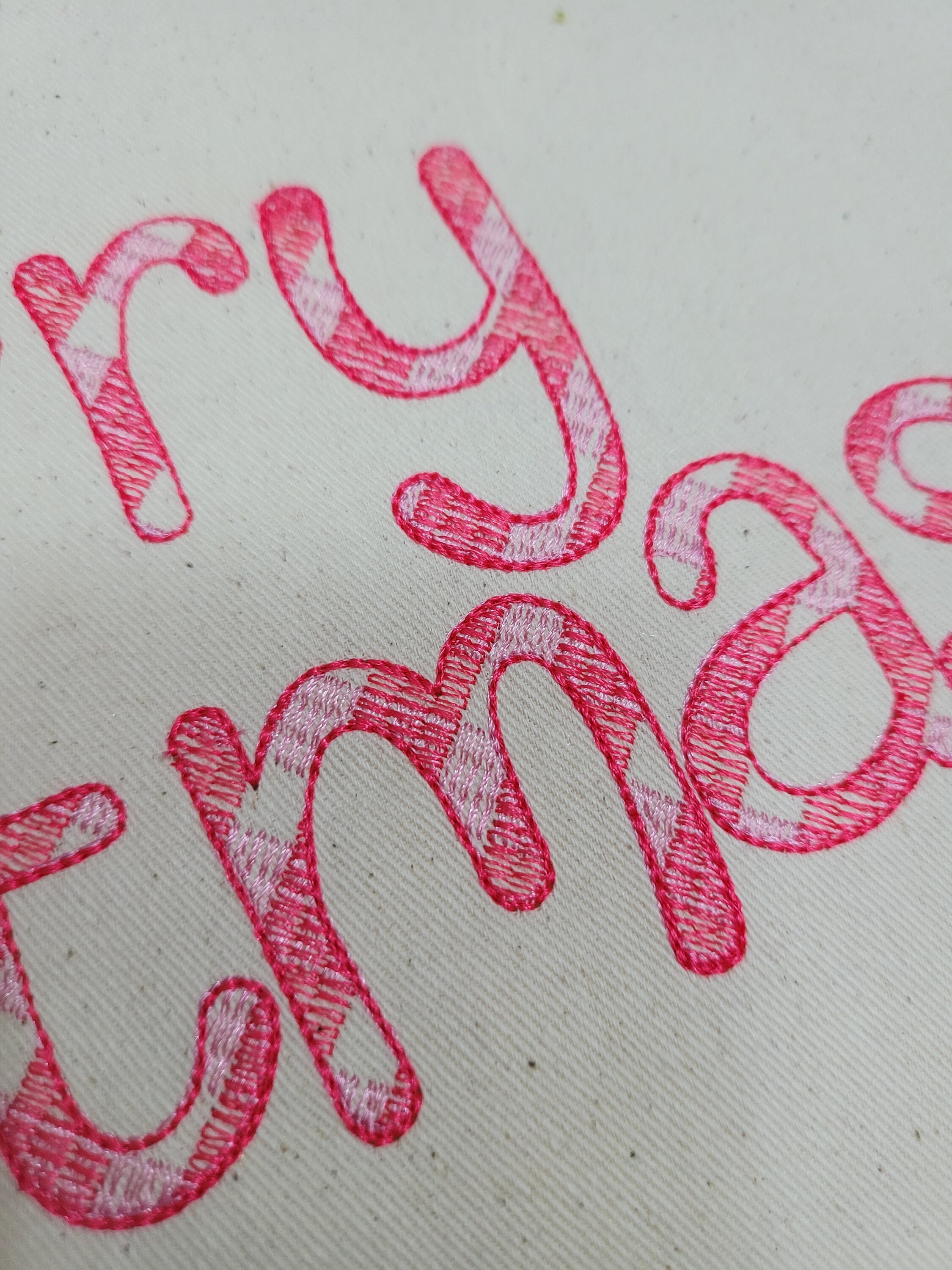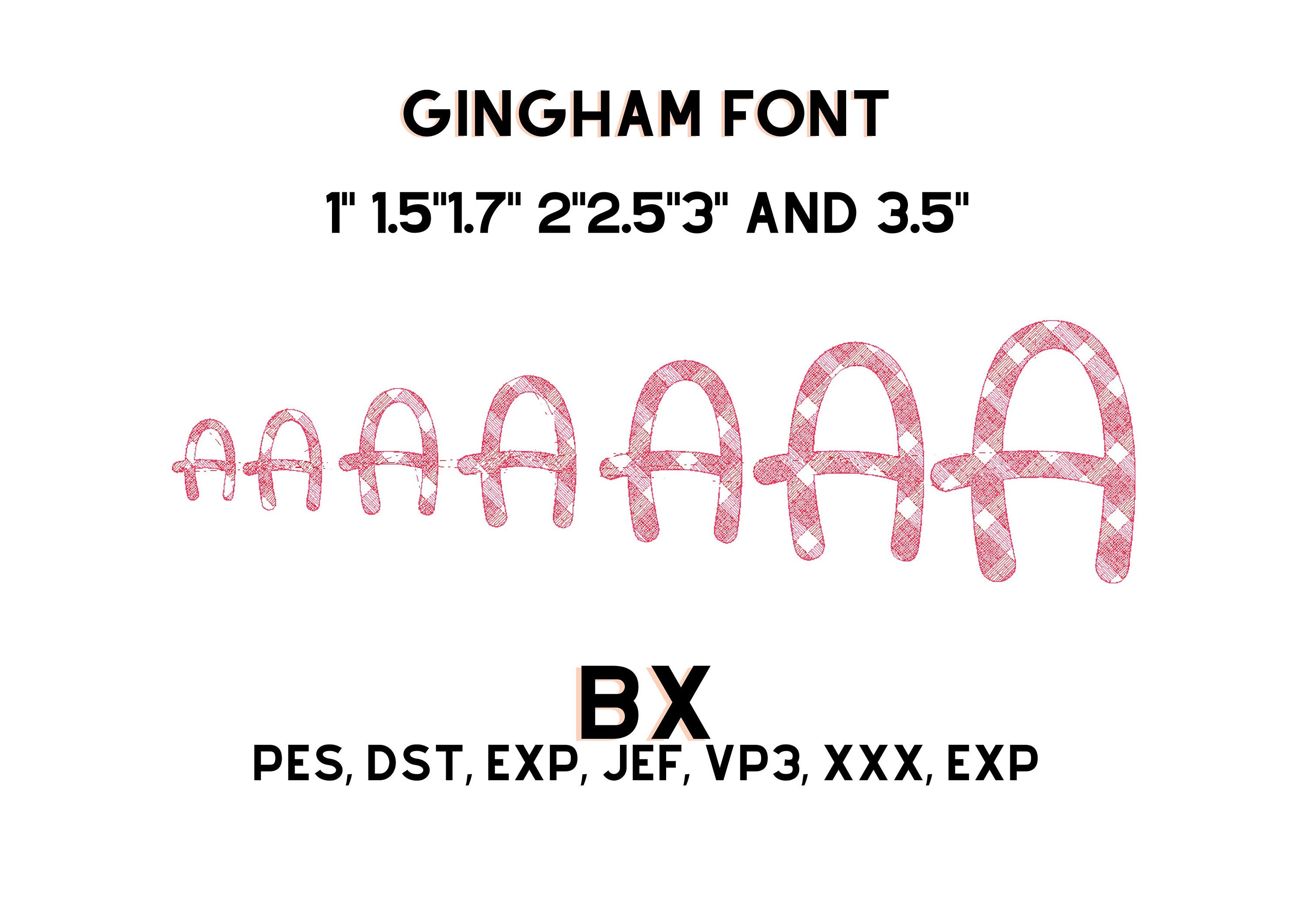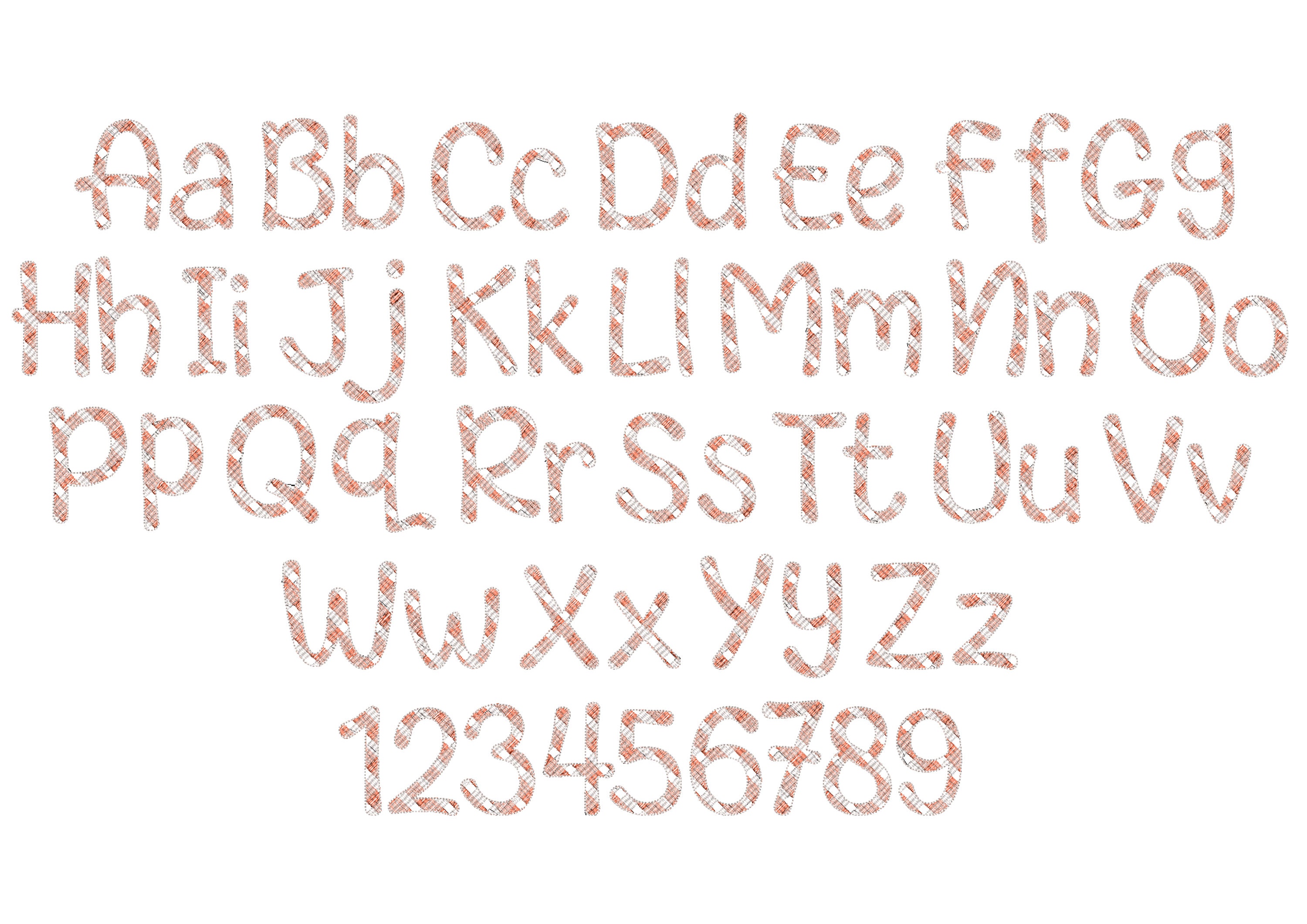
Sweet Gingham Tartan Font Christmas checks machine embroidery designs alphabet letters in sizes from 1 up to 3.5 inches, BX included
Gingham lines are part of the embroidery. Stunning effect.
Included uppercase and lowercase letters, and numbers.